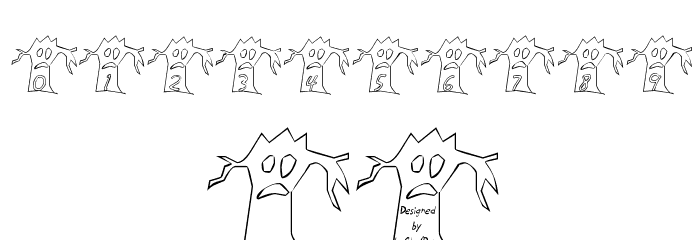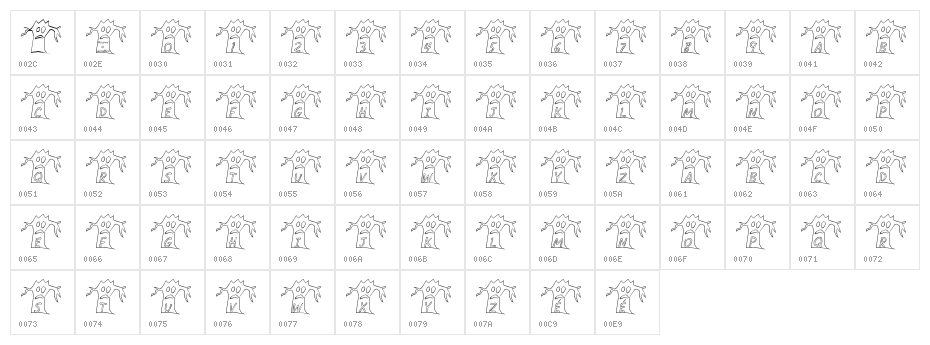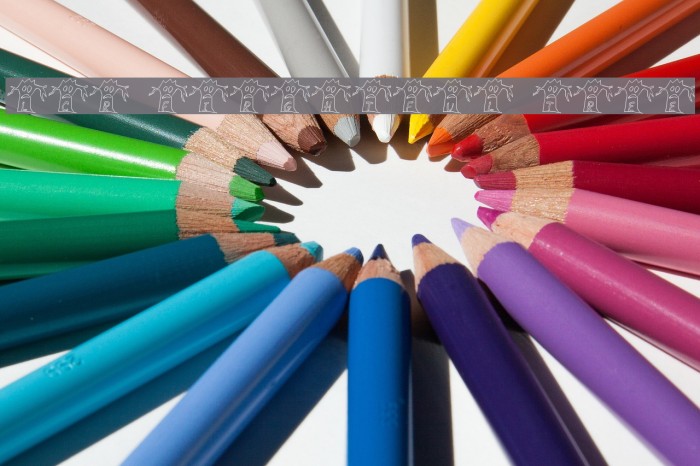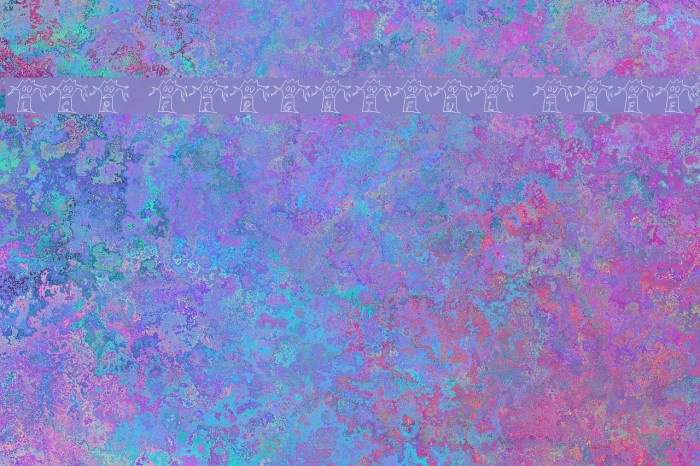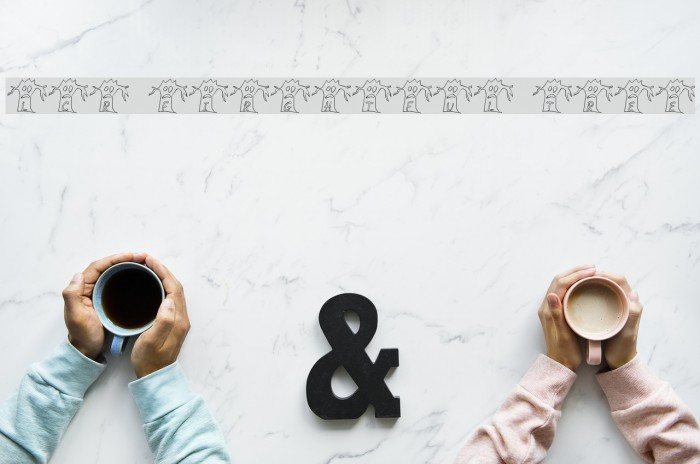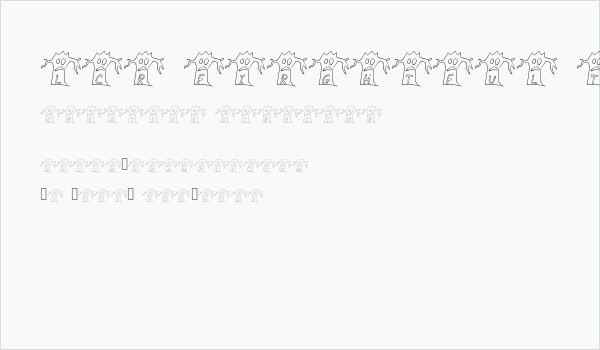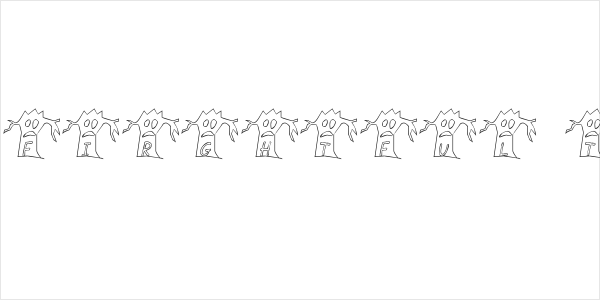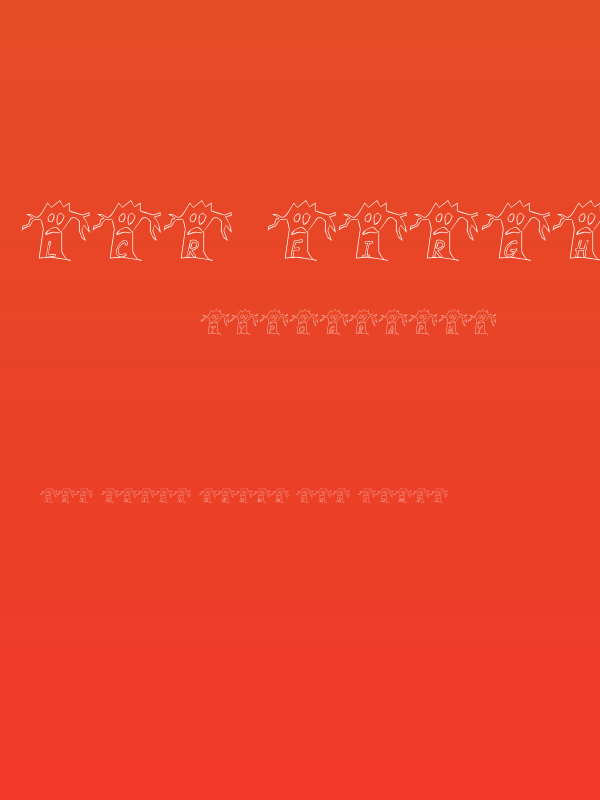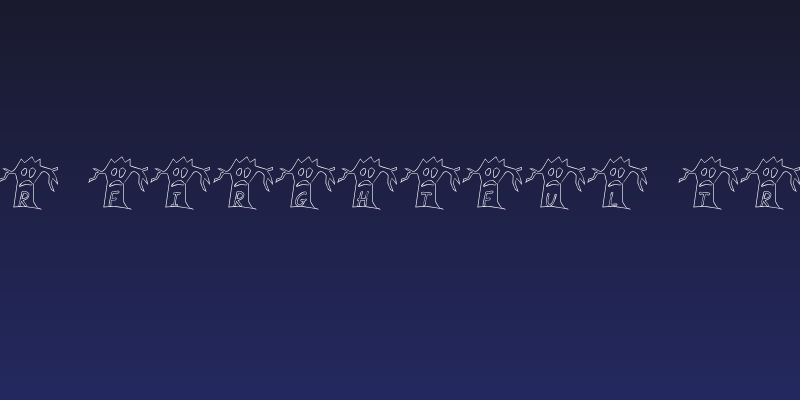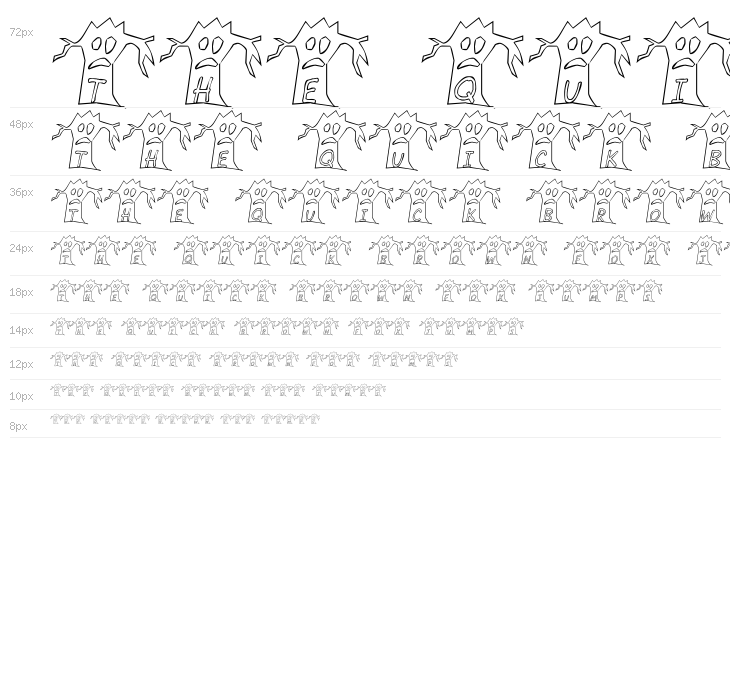
LCR Firghtful Tree Font
LCR Firghtful Tree Description
This font features a whimsical and spooky design, with each character resembling a haunted tree with expressive eyes and outstretched branches. The letters and numbers are integrated into the tree trunks, giving a unique and playful appearance. The style is highly decorative, making it suitable for themed projects that require a touch of Halloween or fantasy. The characters are evenly spaced, maintaining a consistent flow across the text. The font's intricate design makes it more suitable for display purposes rather than body text.
Proposed ProjectsIdeal for Halloween-themed posters, party invitations, children's books, and fantasy-themed branding.